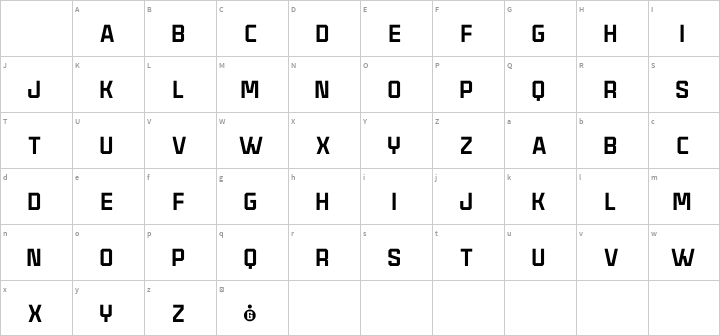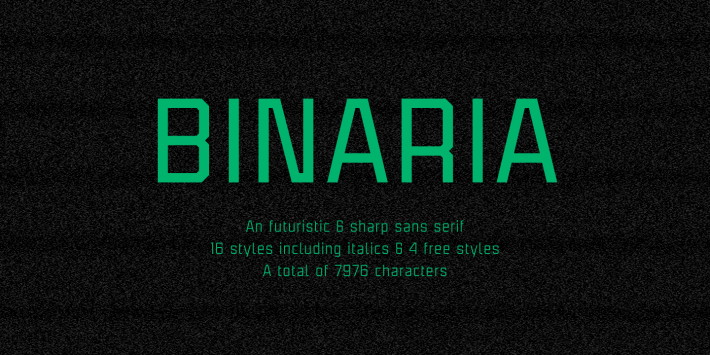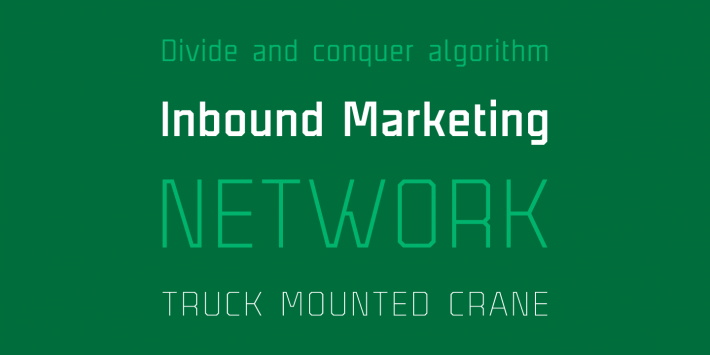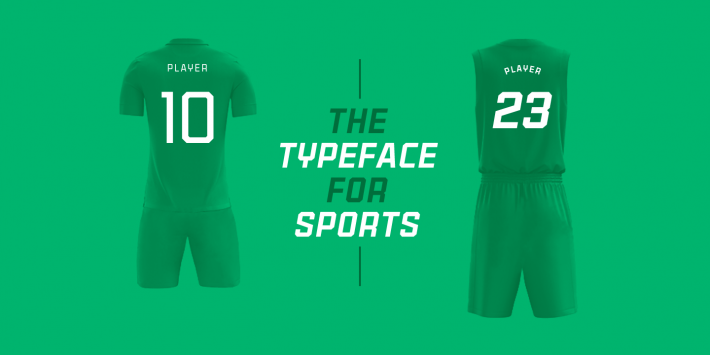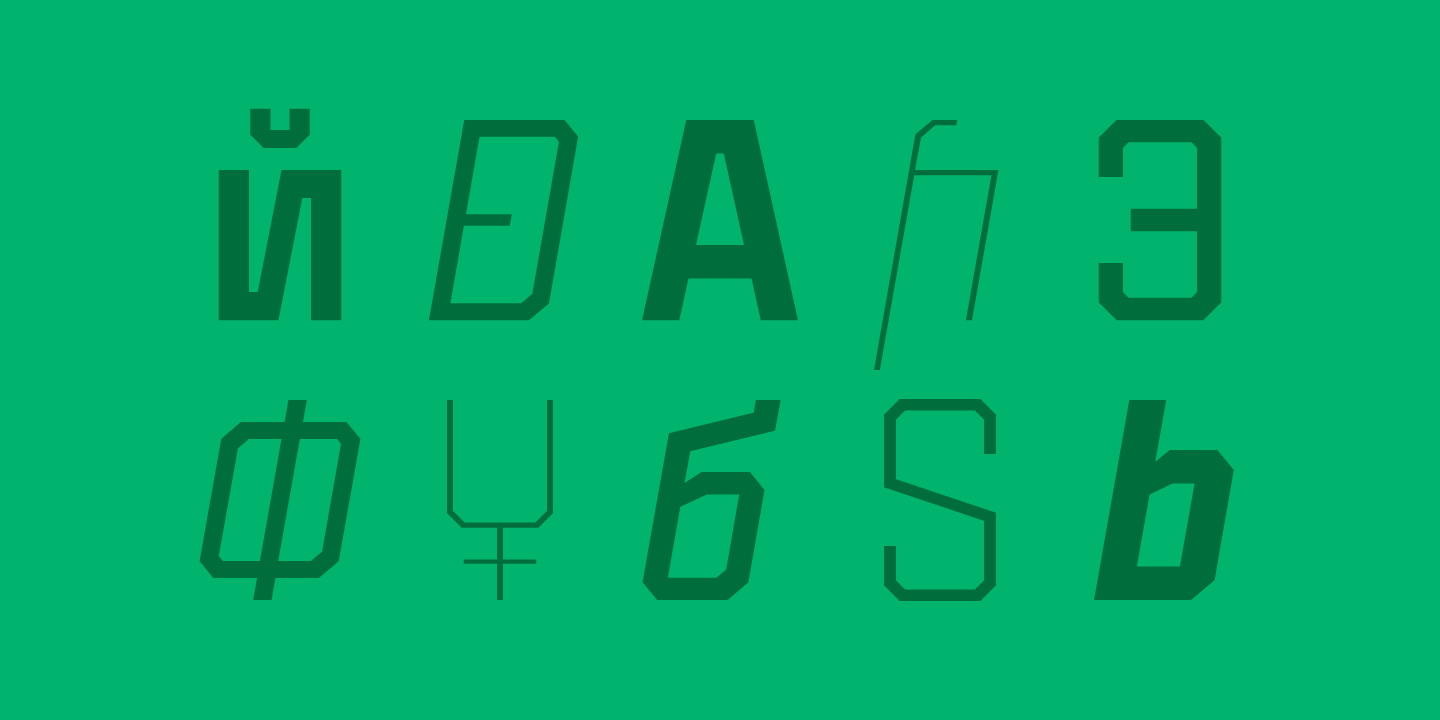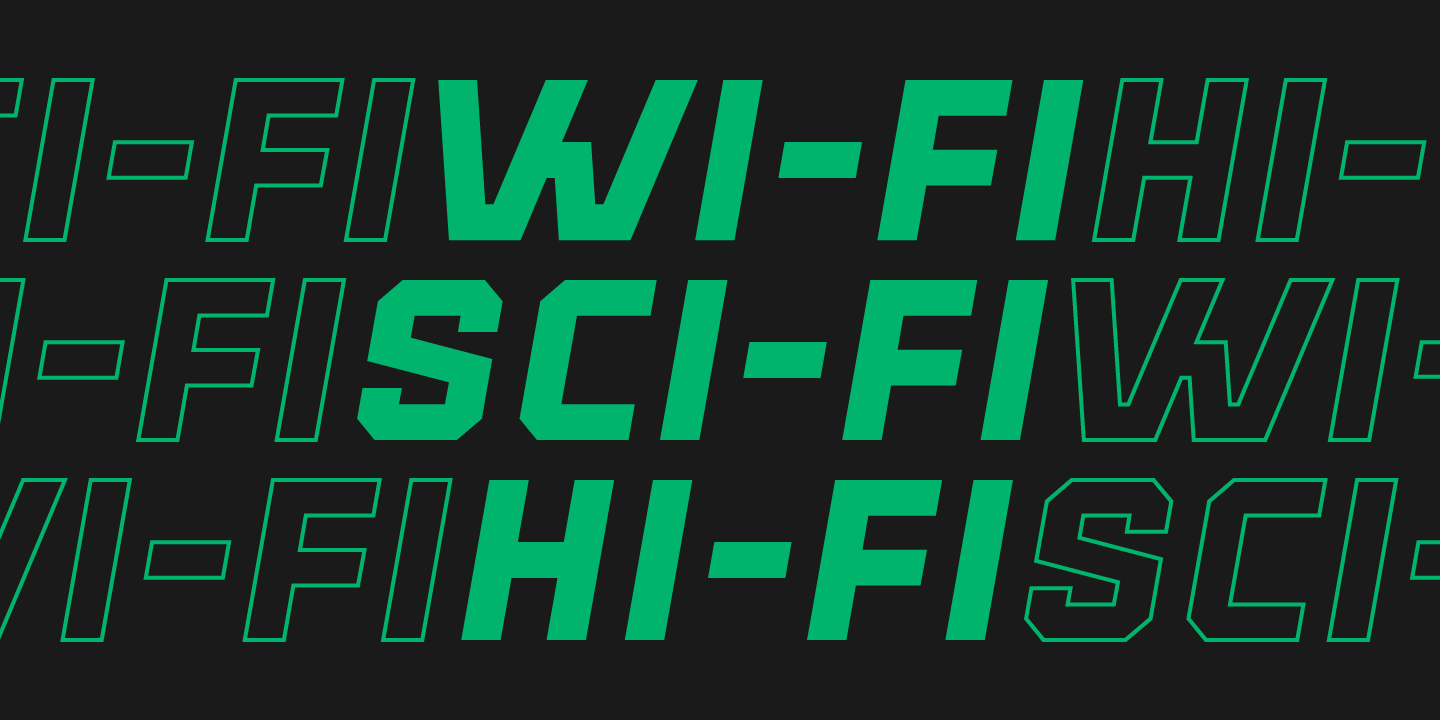
Binaria consists of 12 styles, each containing small caps and glyph coverage for several languages.
Designed by: | Graviton | |
Classifications: | Sans Serif, Stencil | |